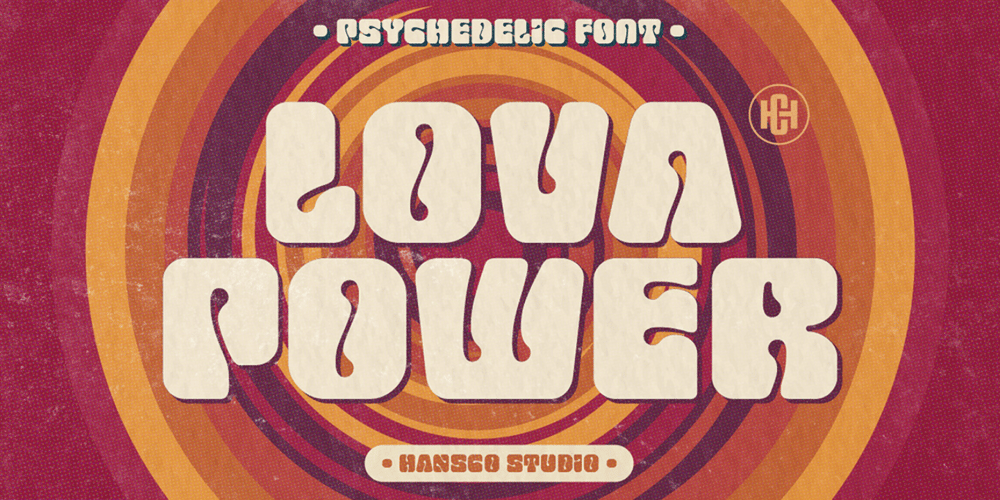
Lova Power Font Family was designed by Burhan Afif and published by HansCo. Lova Power contains 1 styles and family package options. Lova Power font is a retro psychedelic font style with rounded touch. Use this display font to add that special retro vintage touch to any design idea you can think of!Very suitable for logotype, Stickers, Packaging design, Cricut Project, headlines, brand identity, t shirt or apparel industry, posters, magazines, books, YouTube, Instagram, websites, or any of your creative design projects.Enjoy!